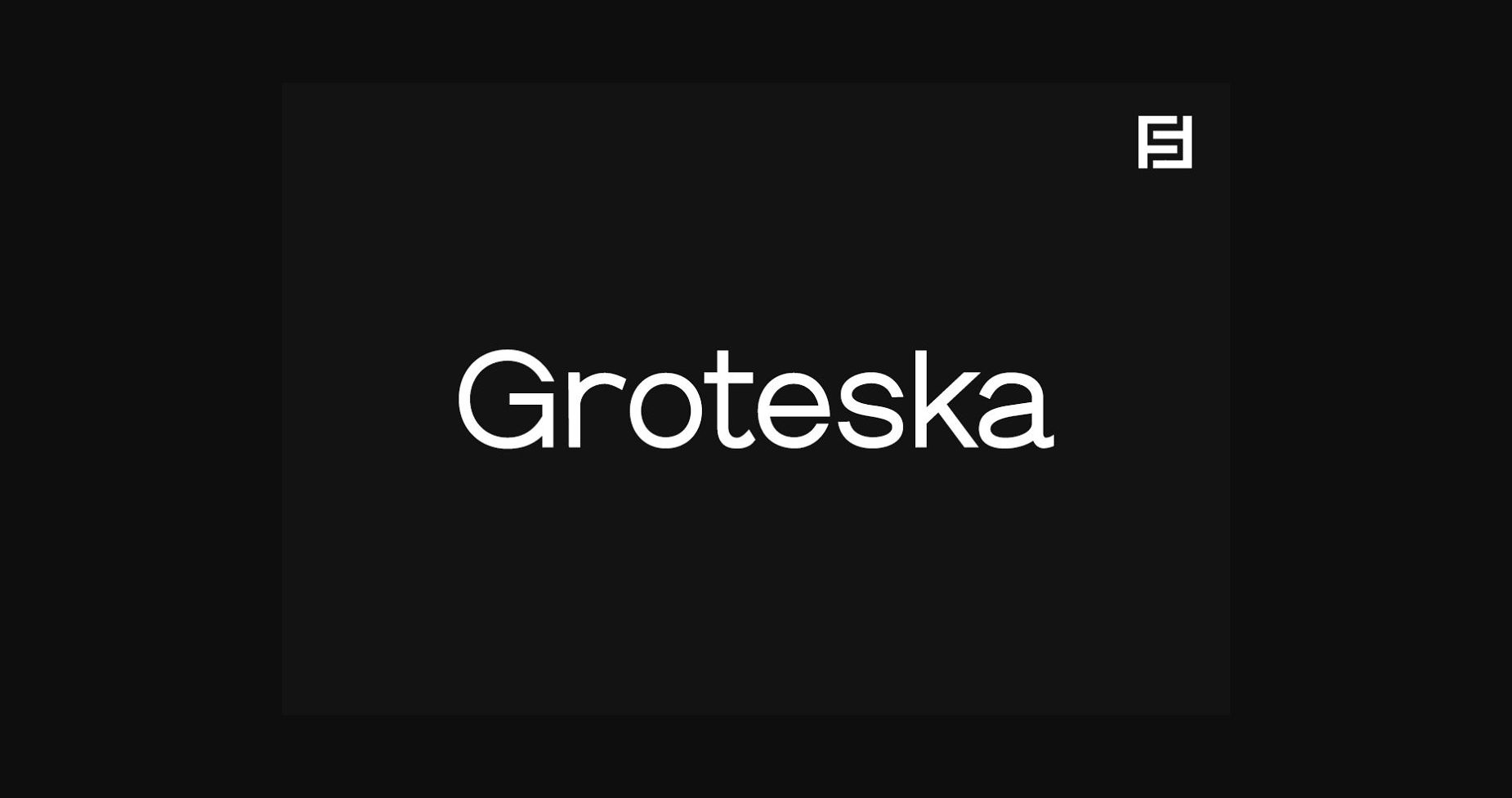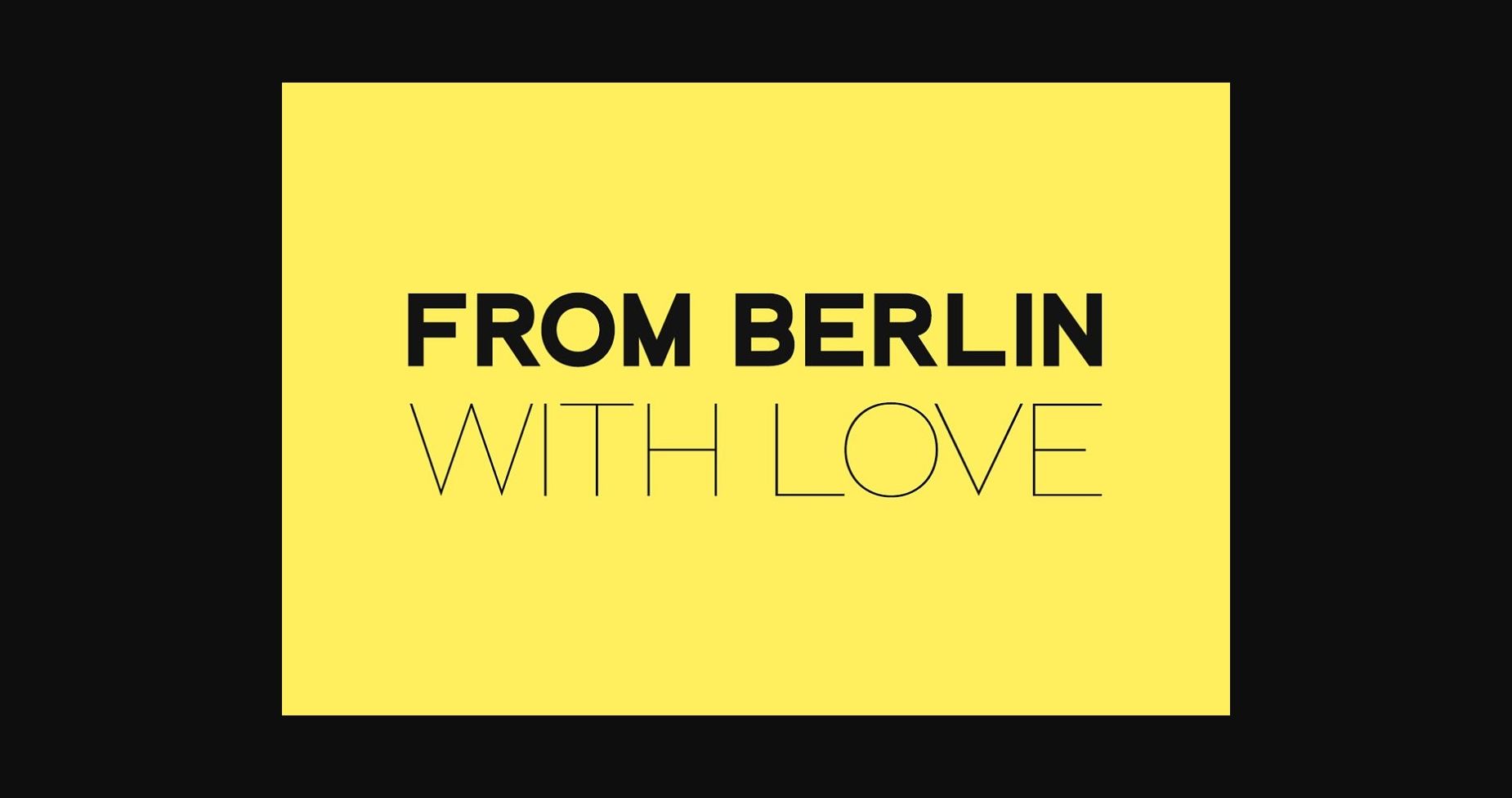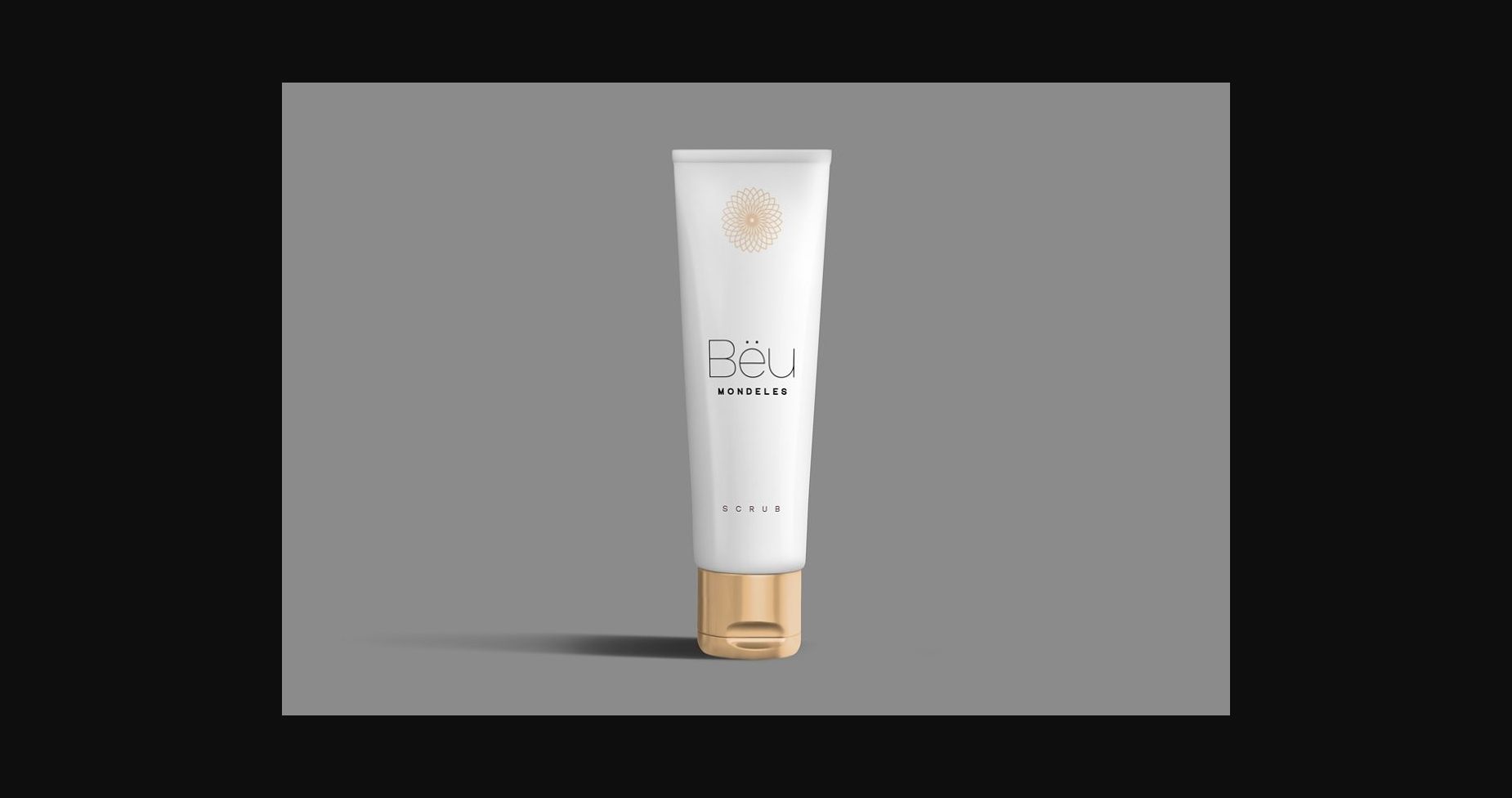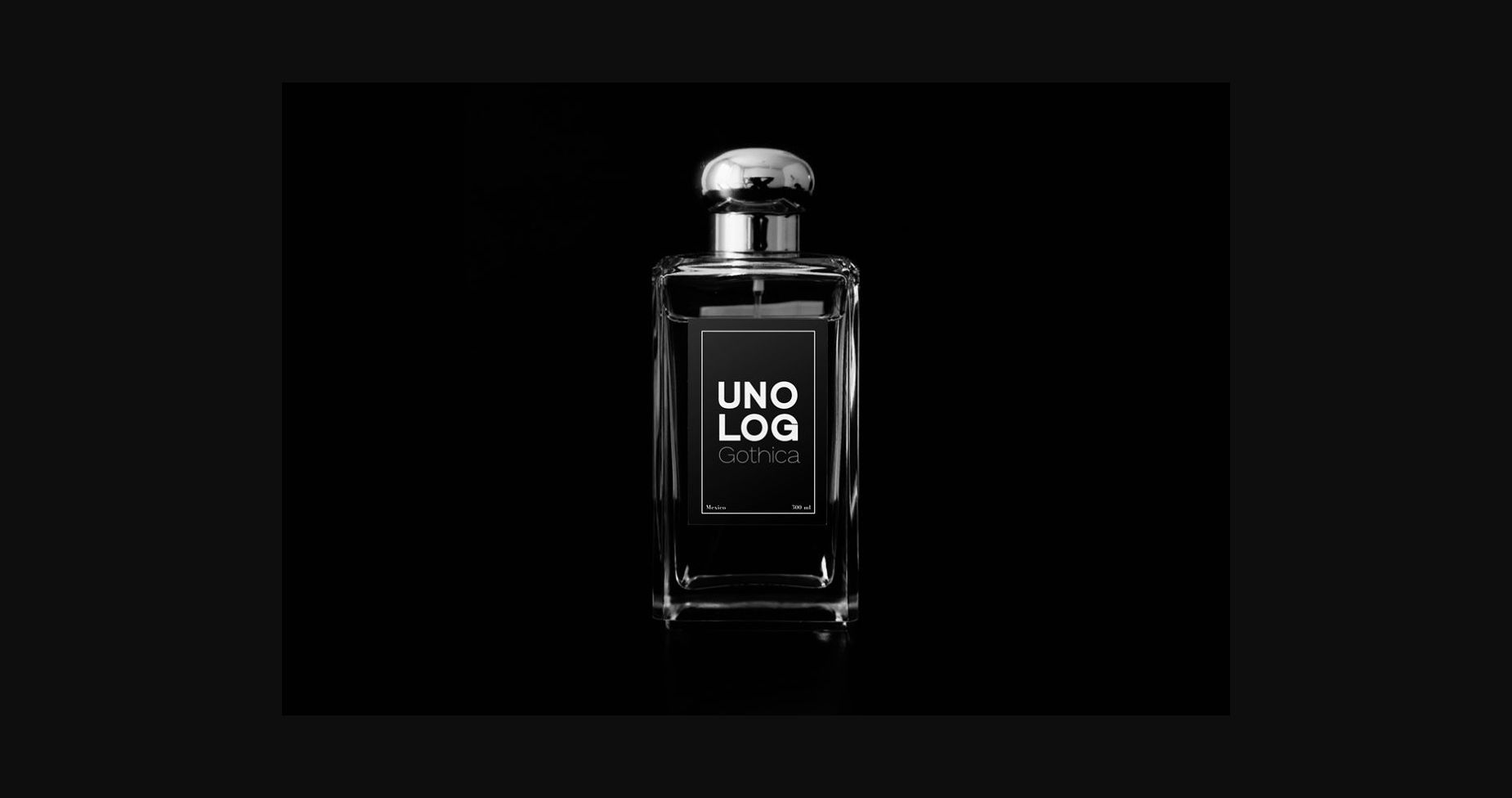
About Groteska Font
Groteska is a modern and minimal sans serif font. With traditional grotesque-oriented characters and a clean, neat style, this font would make a wonderful asset to your fonts library!